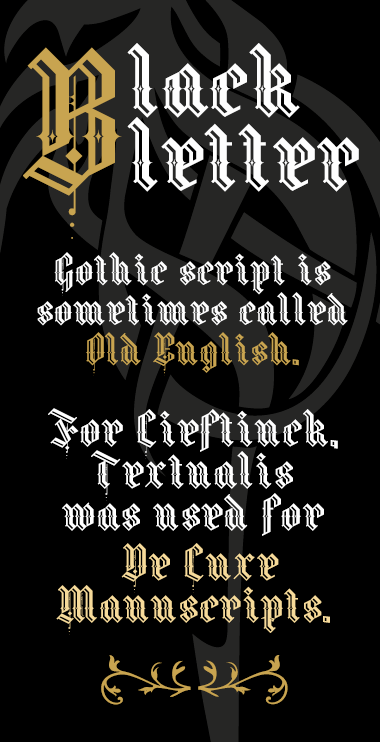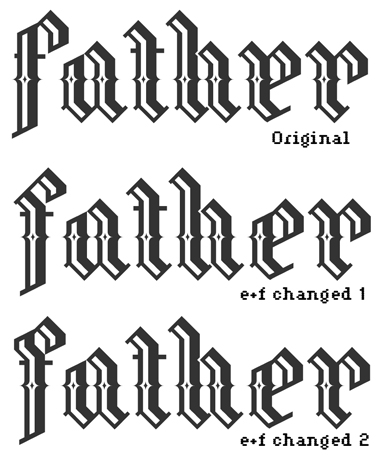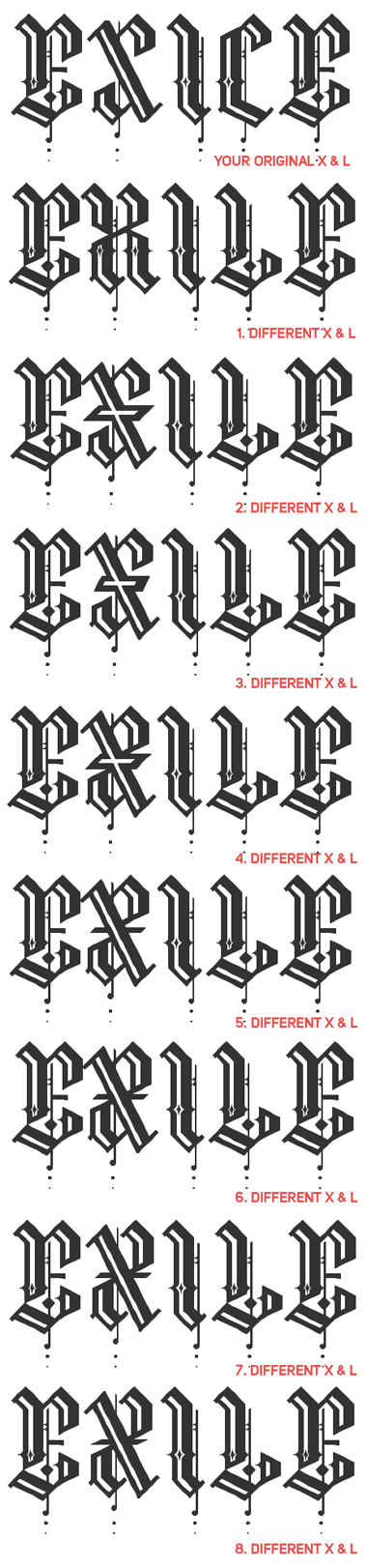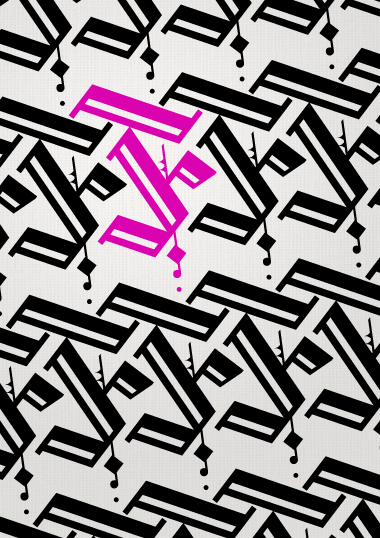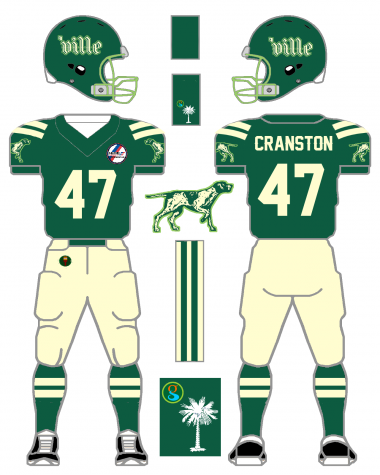
Blackletter with a fat inline.
A mix of traditional blackletter glyph, exploration and grid compromise.
yes Architaraz only one entry, I had 2 or 3 ideas at the begining of this comp but this 'Fraline' took all my time.
I whis I could add more detail , it's a never ending project.
f, I agree the original is a bit "too straight", I'll consider your suggestion.
I had a hard time the X, because I only use few angles, it was difficult to keep the design harmony and glyph weight with the rest of the alphabet. Any suggestion will be welcome
I'm really happy. thank to this competition, otherwise I would never had accomplish this blackletter the way it is design now. The inline comp force me to make my stem wider than my first draft and at the end of the process came out at my satisfaction.
You'll be disapoint because this font is a total creation inspire by blackletter in general and FS restrictions. I do calligraphy for several years, and Fraline is more influenced by a personnal alphabet I draw with metal nibs.
This font is an adventure result of many uncontroled parameters. I set up the base with the design of my two first glyphs: o and m, after I decline the rest , but folowing:
>The inline competition force me to make the stem at 4 blocks wide to have a big inline in it.
>The grid and patterns of FS impose the major axis of the font, 45, 22,5 (one exception the X) . I did'nt want to complicate myself with complex angles composites.
This F was the last glyph created... it's the result of the grid constraint and axis used for the whole font, I wanted to replicate the spirit of F from FRAKTUR FETTE, which was ambitious even arrogant ;) I'm far away but I'm quite happy of this F.
If you find a F design close to this one let me know please.